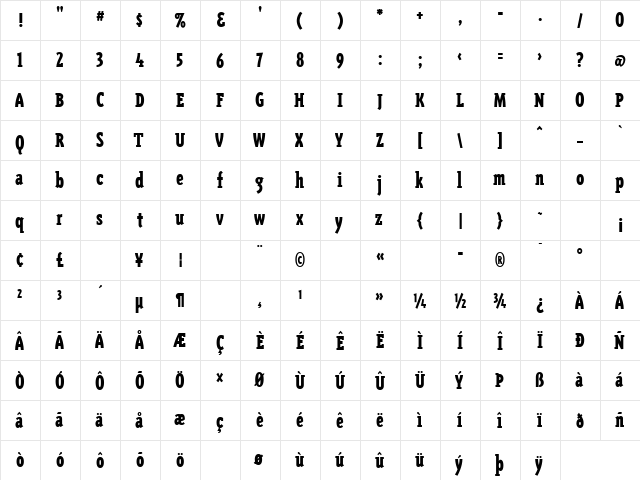
TriplexConSerBlackLining Regular
TriplexConSerBlackLining is a composed and adaptable typeface that performs quietly and consistently across a wide range of design contexts.